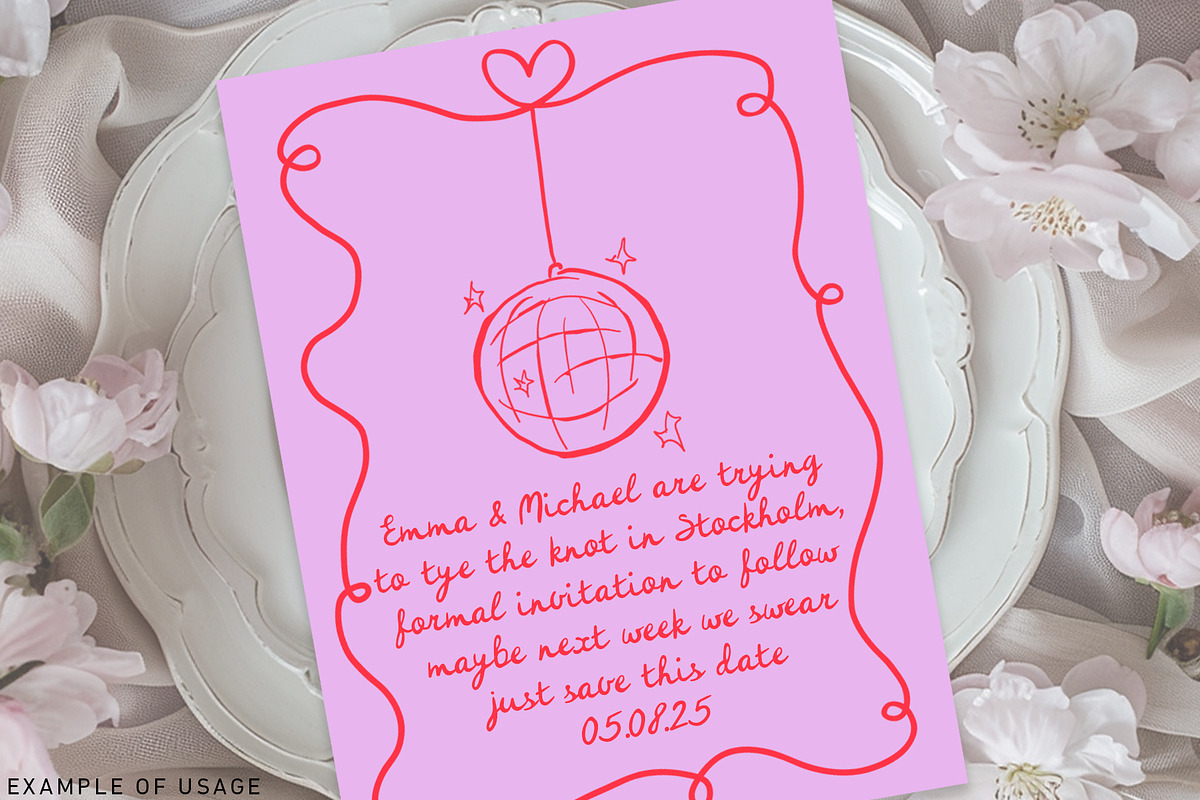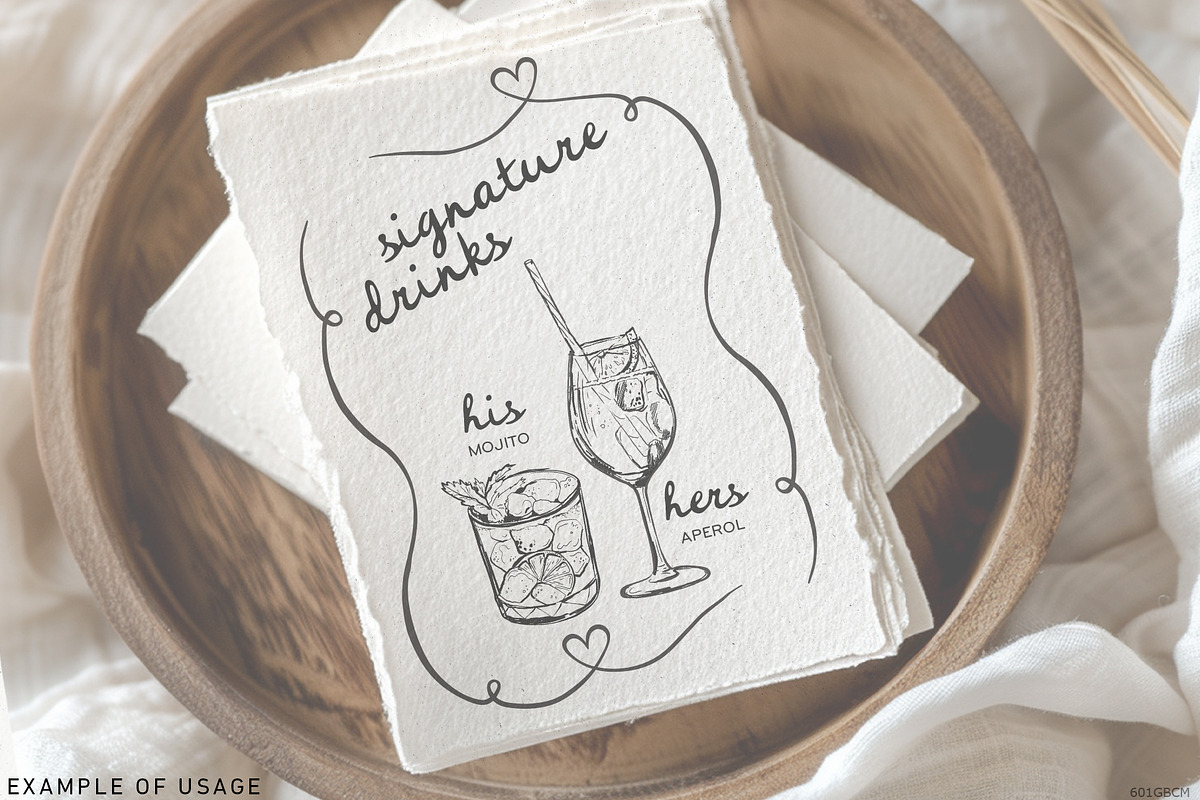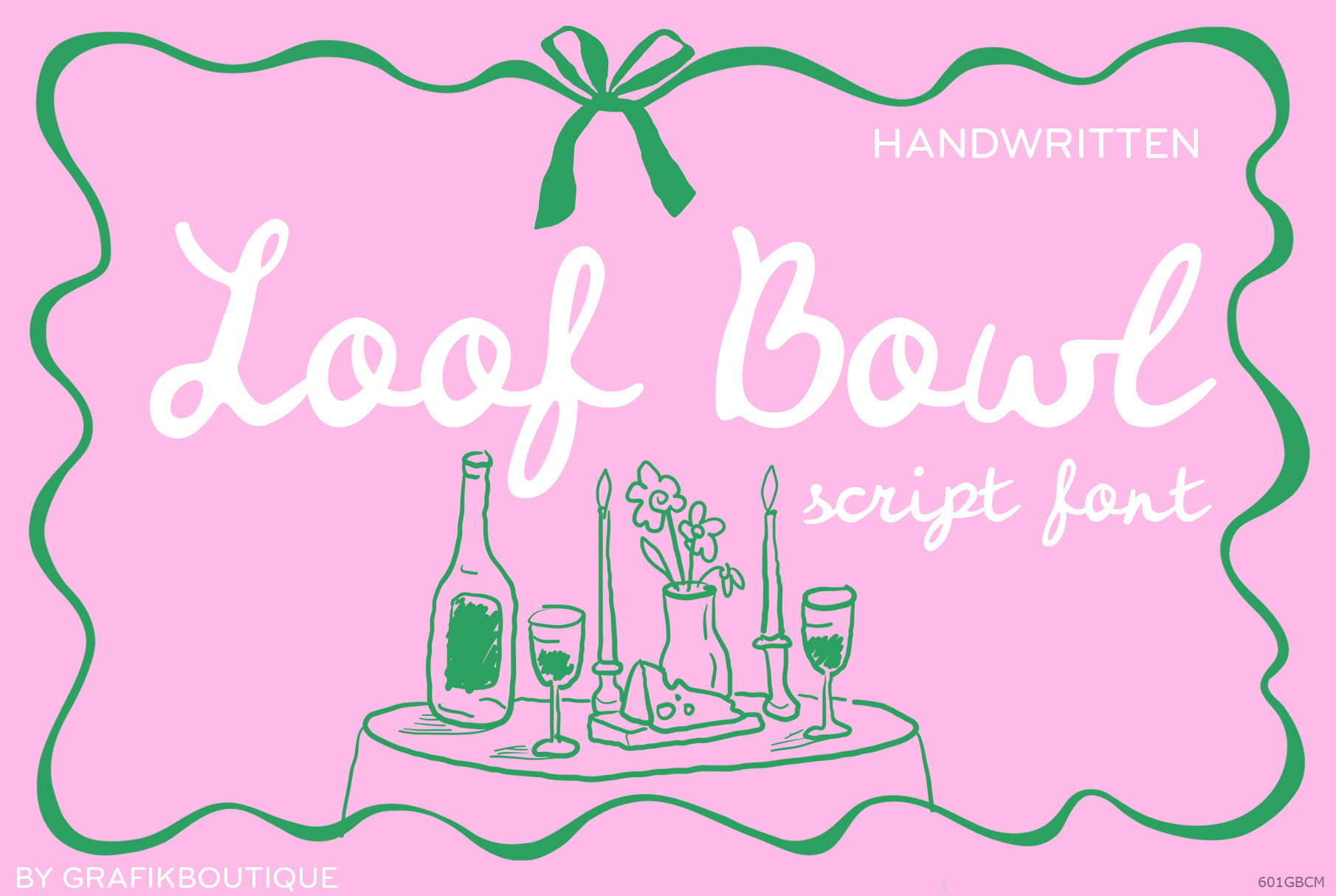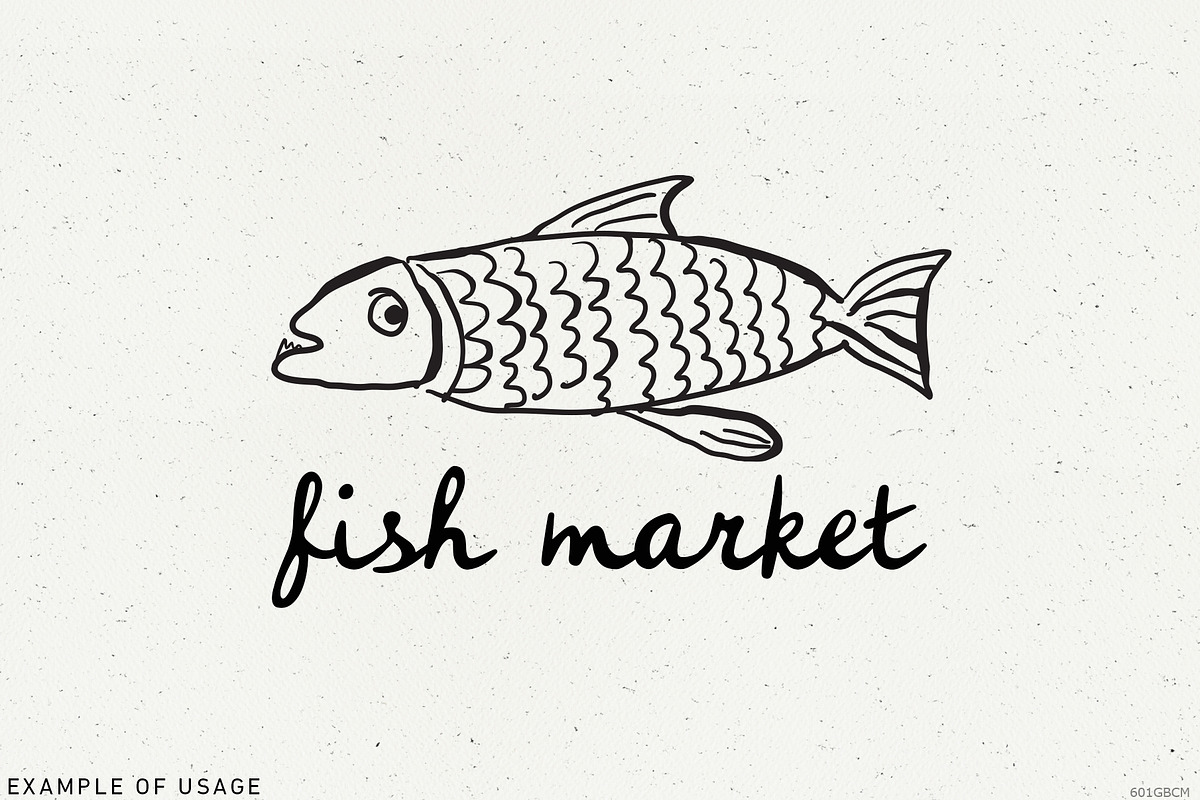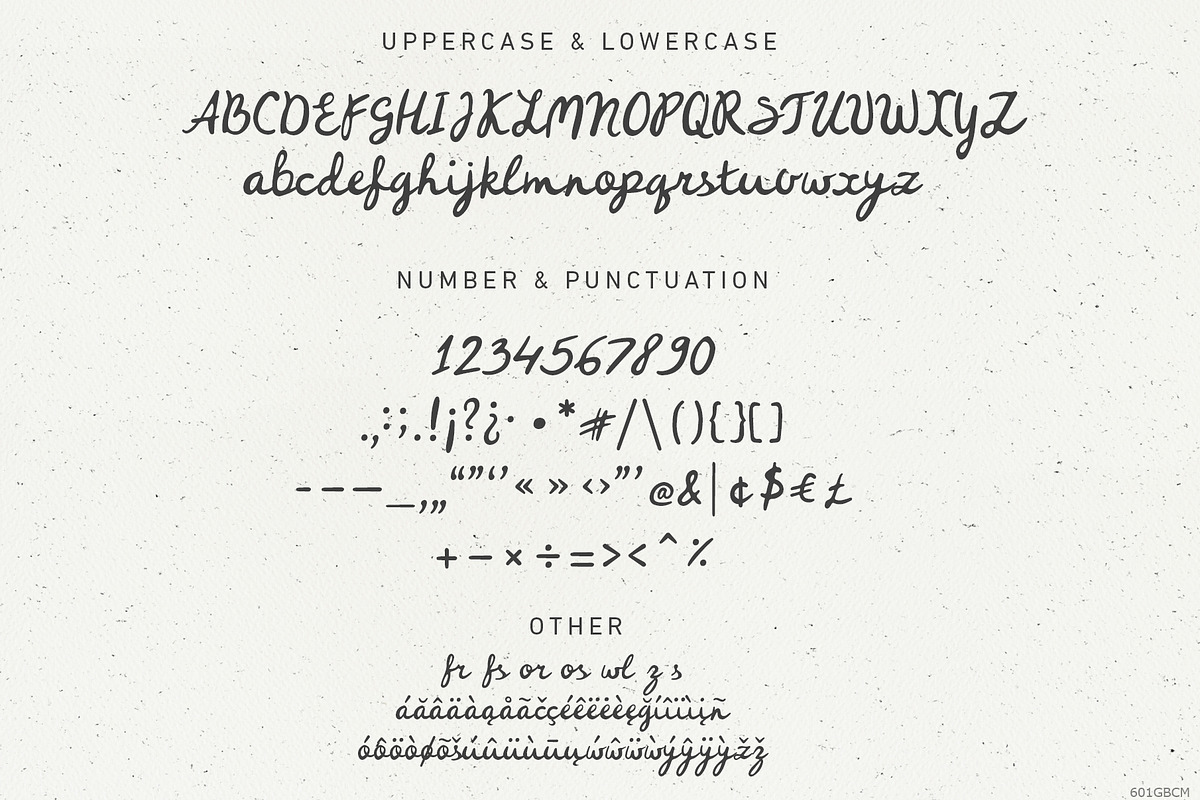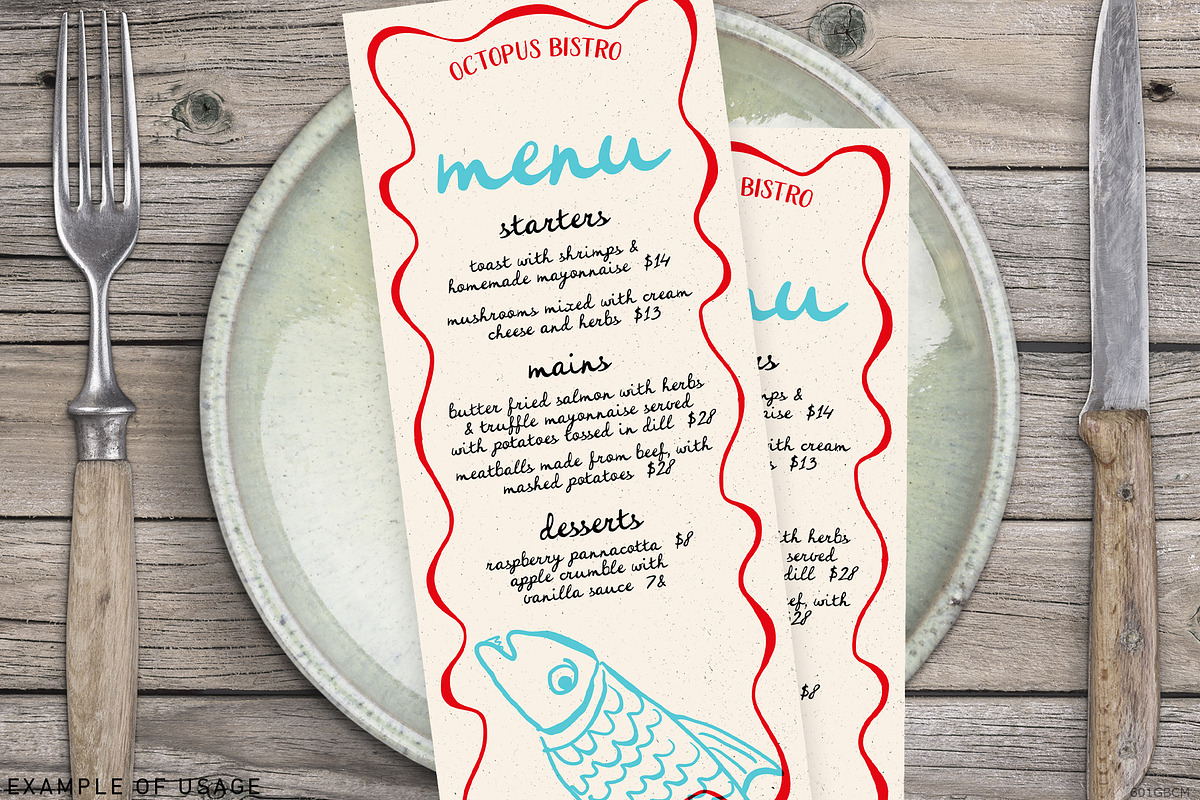
Loof Bowl | handwritten font
Loof Bowl is a script font based on casual handwritting. Charming, warm, natural looking, trendy, handwritten and sophisticated font.
It is perfect for any design that needs a handwritten feel, such as menu cards, invitations, wedding stationery, party decoration, fabrics and many more.
Loof Bowl features: